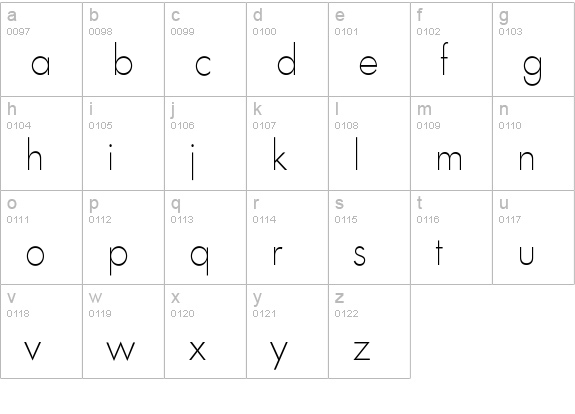
Limerick-Xlight Font Details
Limerick-Xlight font is a delicate and elegant typeface that exudes sophistication and charm. With its clean lines and modern design, this font is perfect for adding a touch of class to any project. The slim and graceful strokes of Limerick-Xlight make it ideal for use in headings, invitations, and other design elements where a subtle and refined look is desired. Best of all, this stunning font is available for free download at FontsMarket.com, allowing you to easily incorporate its beauty into your creations. Elevate your designs with the timeless appeal of Limerick-Xlight font today!